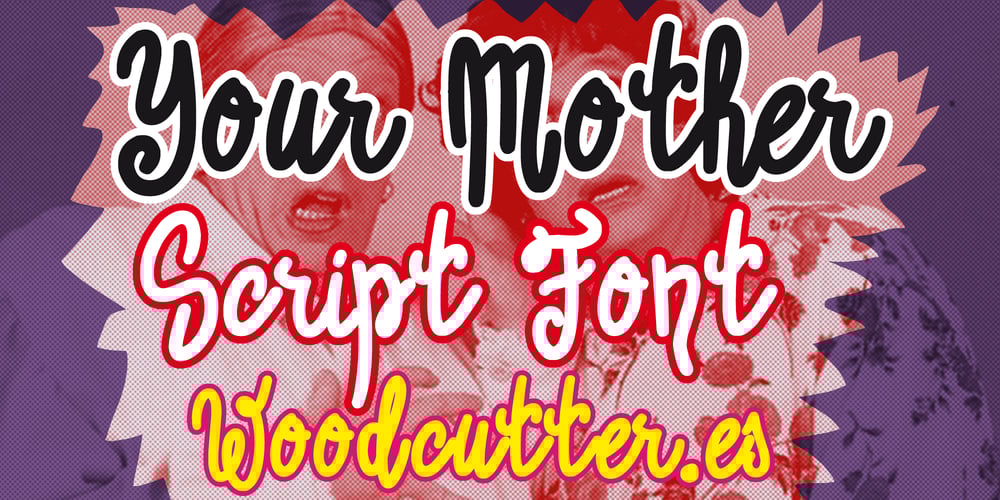
Your Mother Font Family was designed by Jordi Manero and published by Woodcutter. Your Mother contains 1 styles and family package options. “Your Mother” is a Script-style font that emulates typical handwritten typography, with a feminine and elegant touch. Featuring carefully designed uppercase and lowercase letters, this typeface captures the fluidity and charm of personal calligraphy. Ideal for projects seeking a sophisticated and delicate style, “Your Mother” is perfect for invitations, cards, and any graphic material requiring a touch of warmth and personalization. Its refined appearance and readability make it a versatile and attractive choice for a wide range of applications.